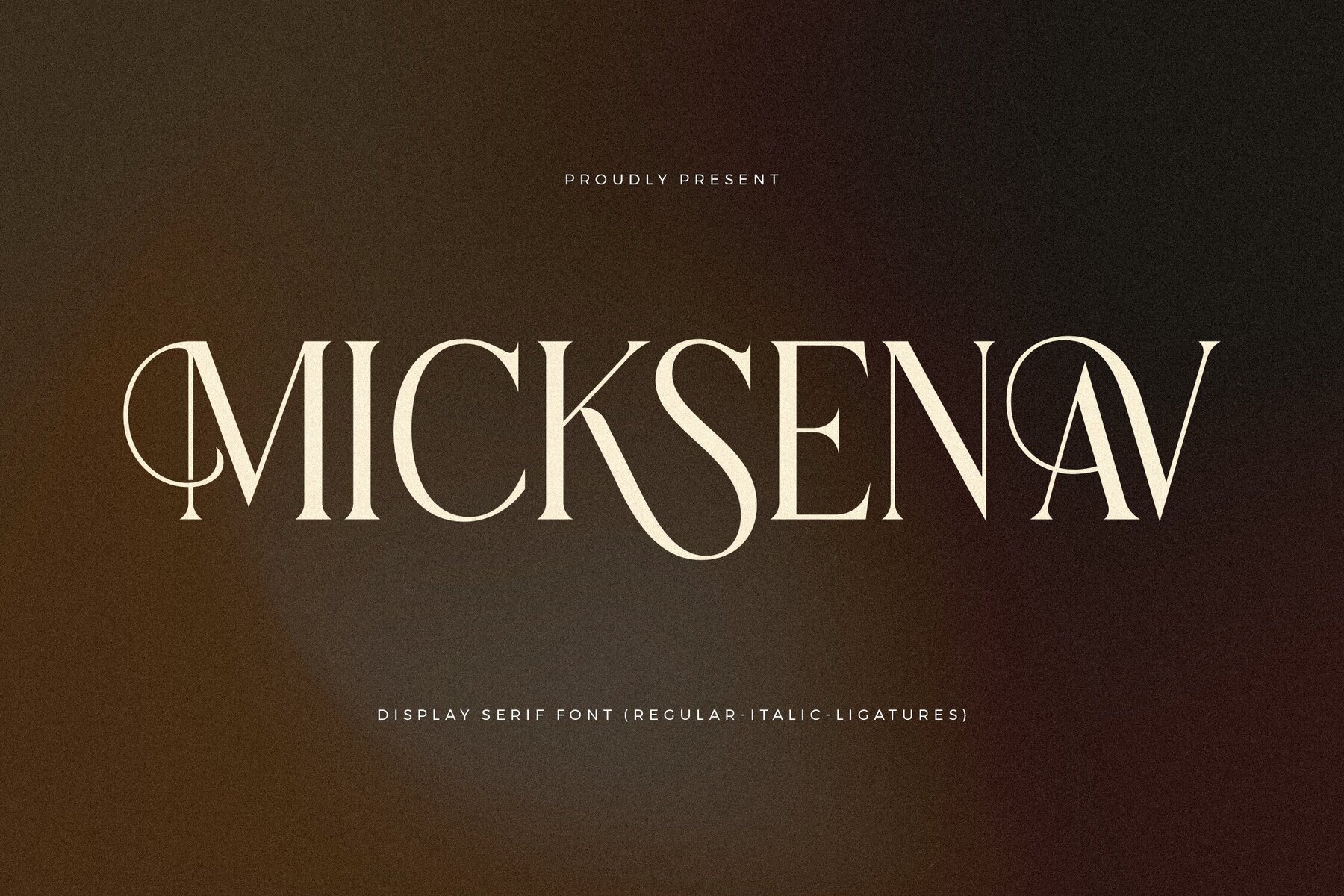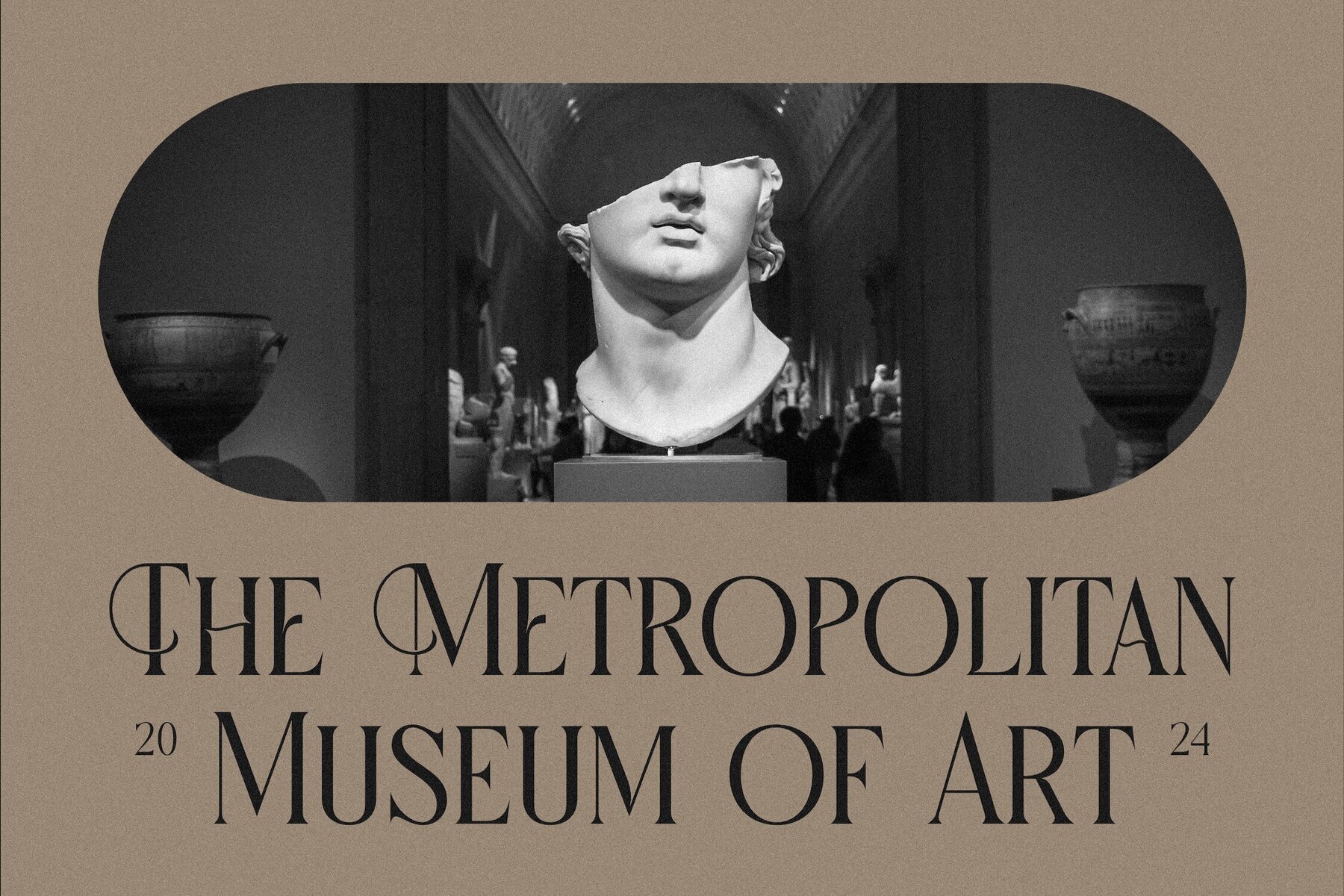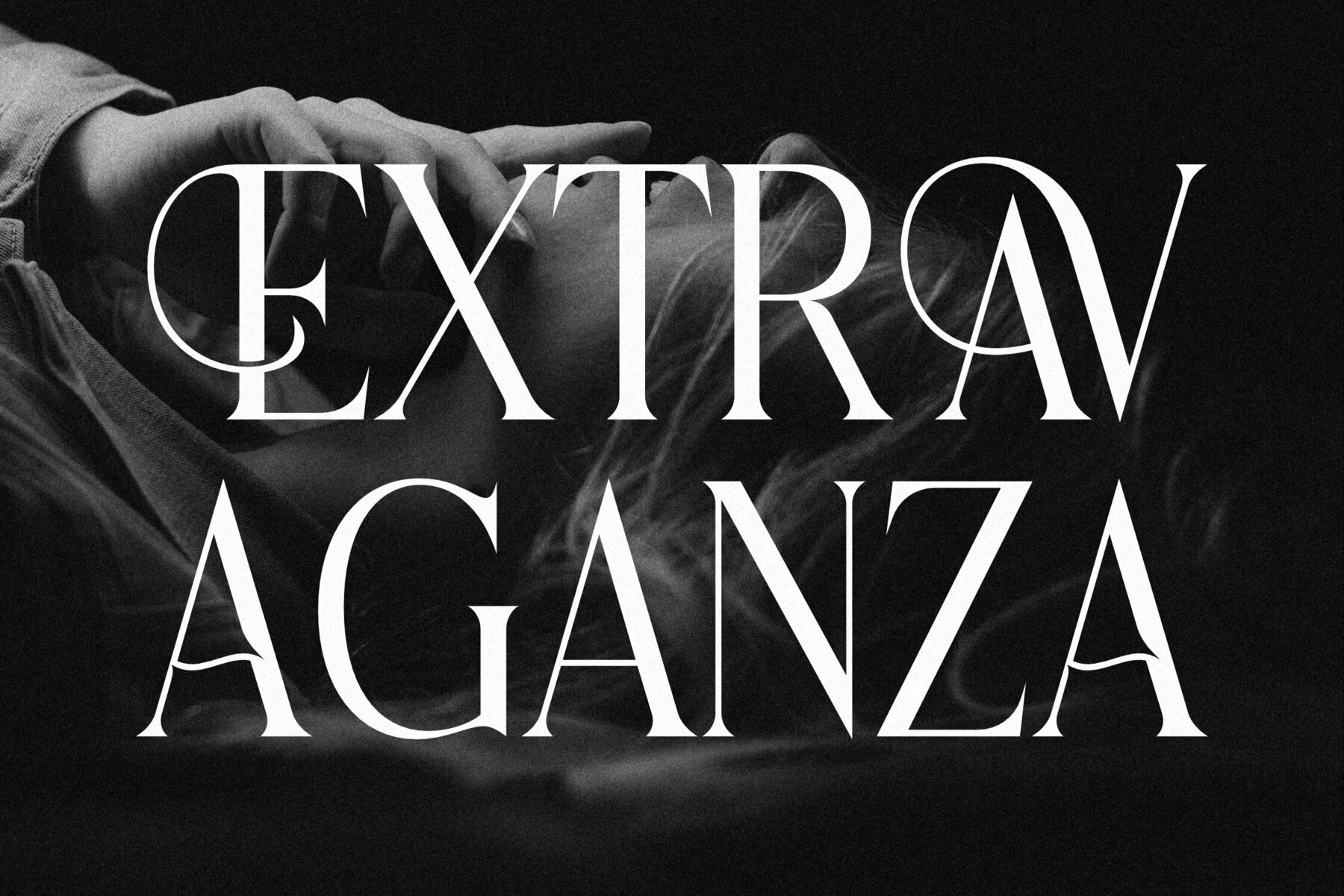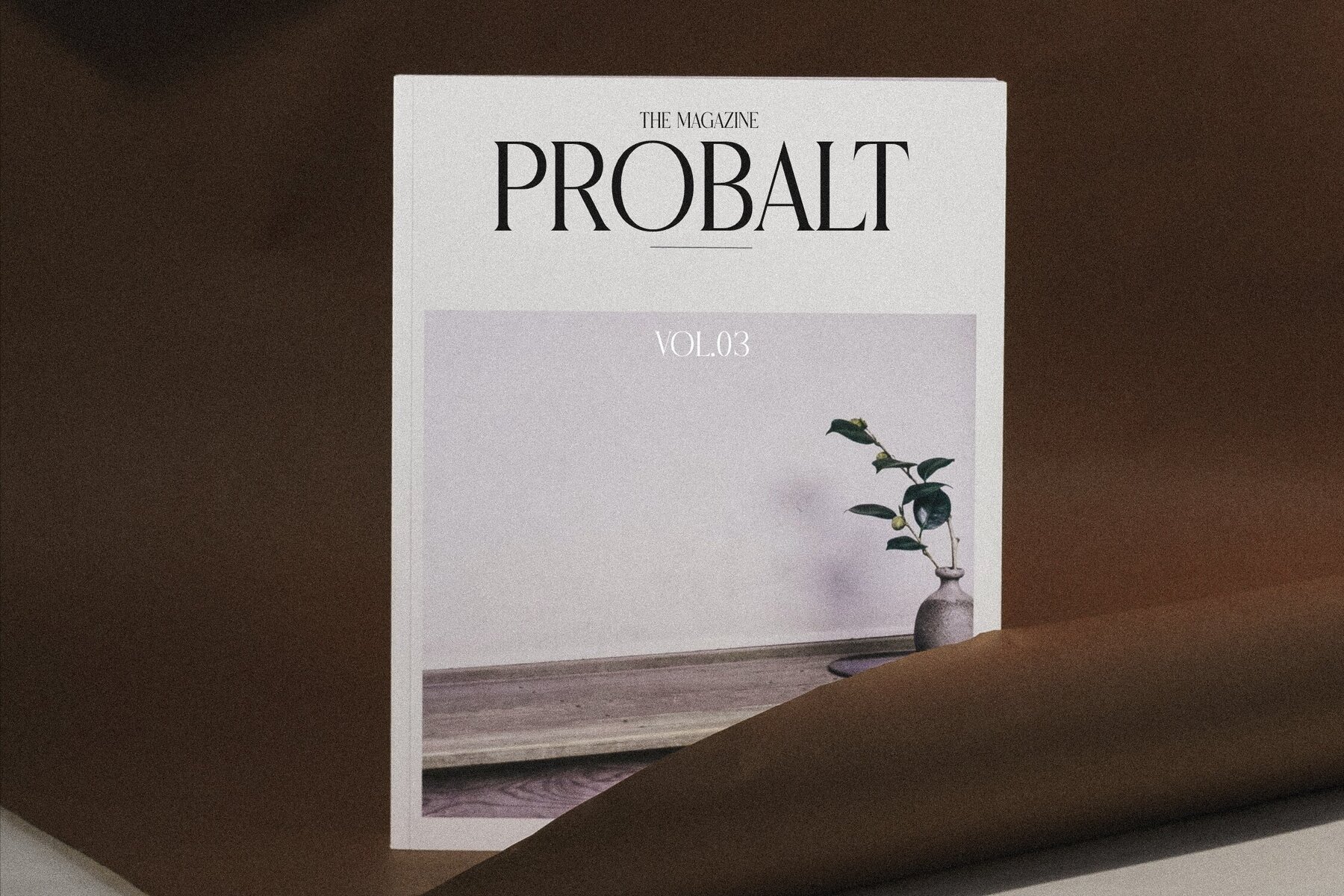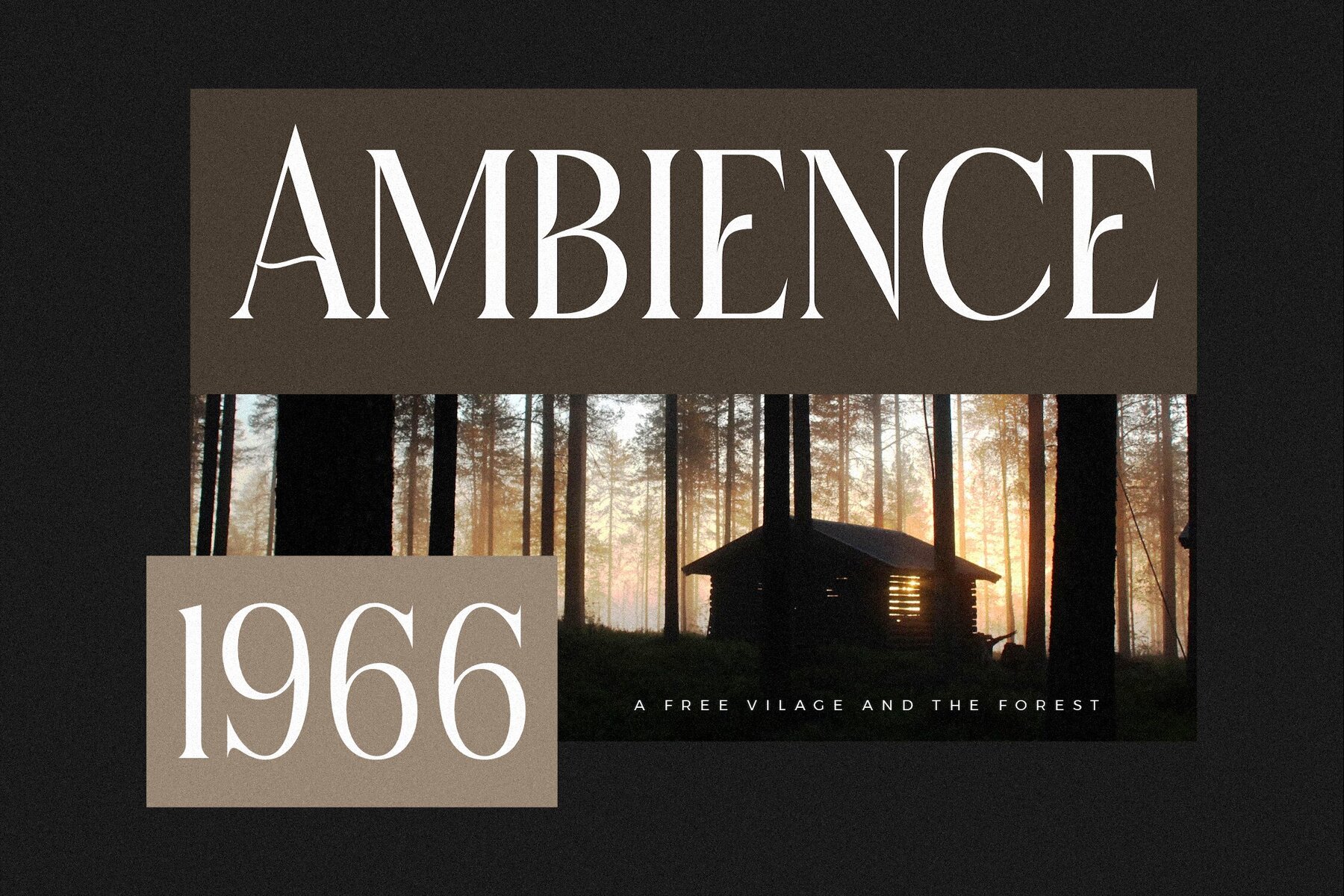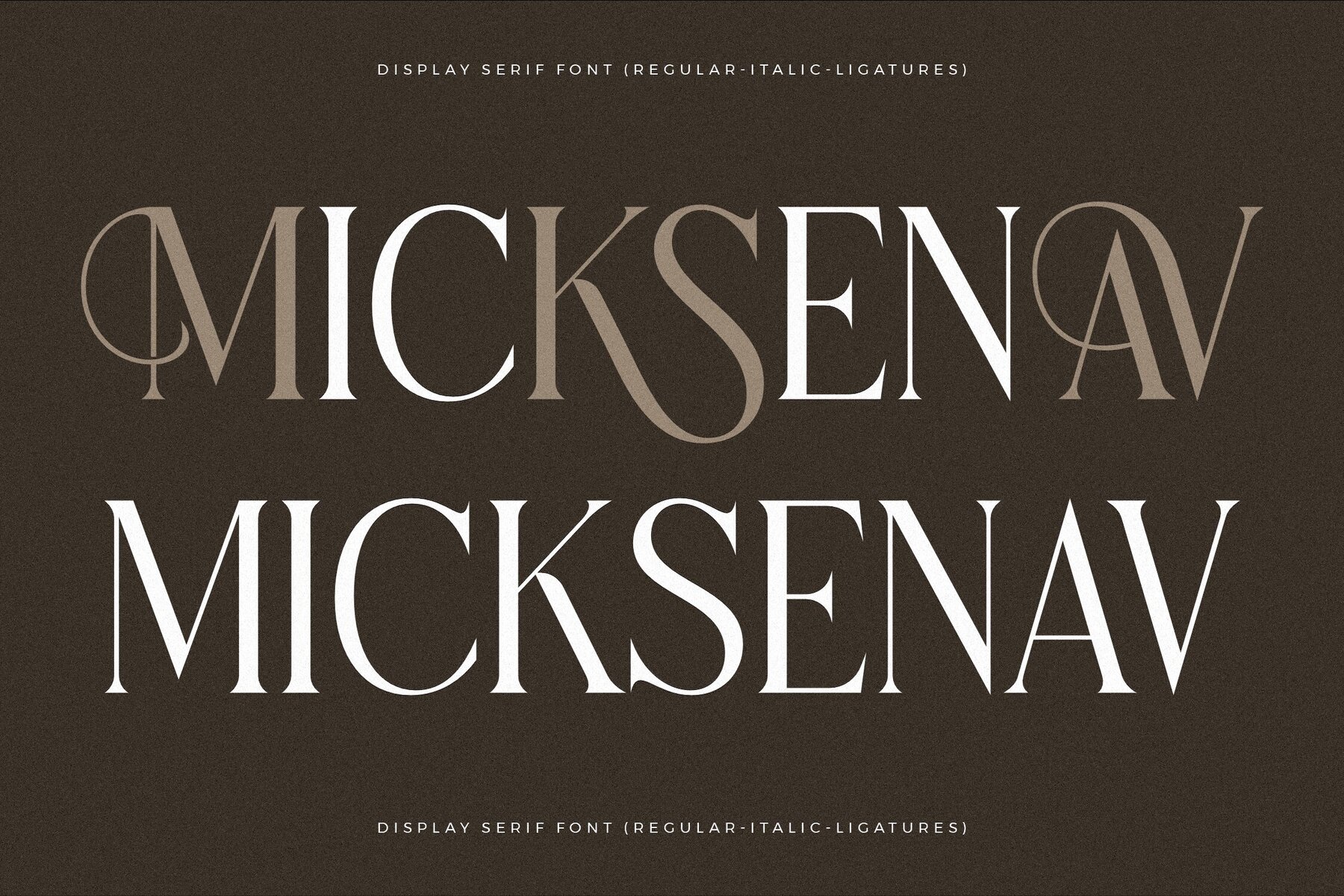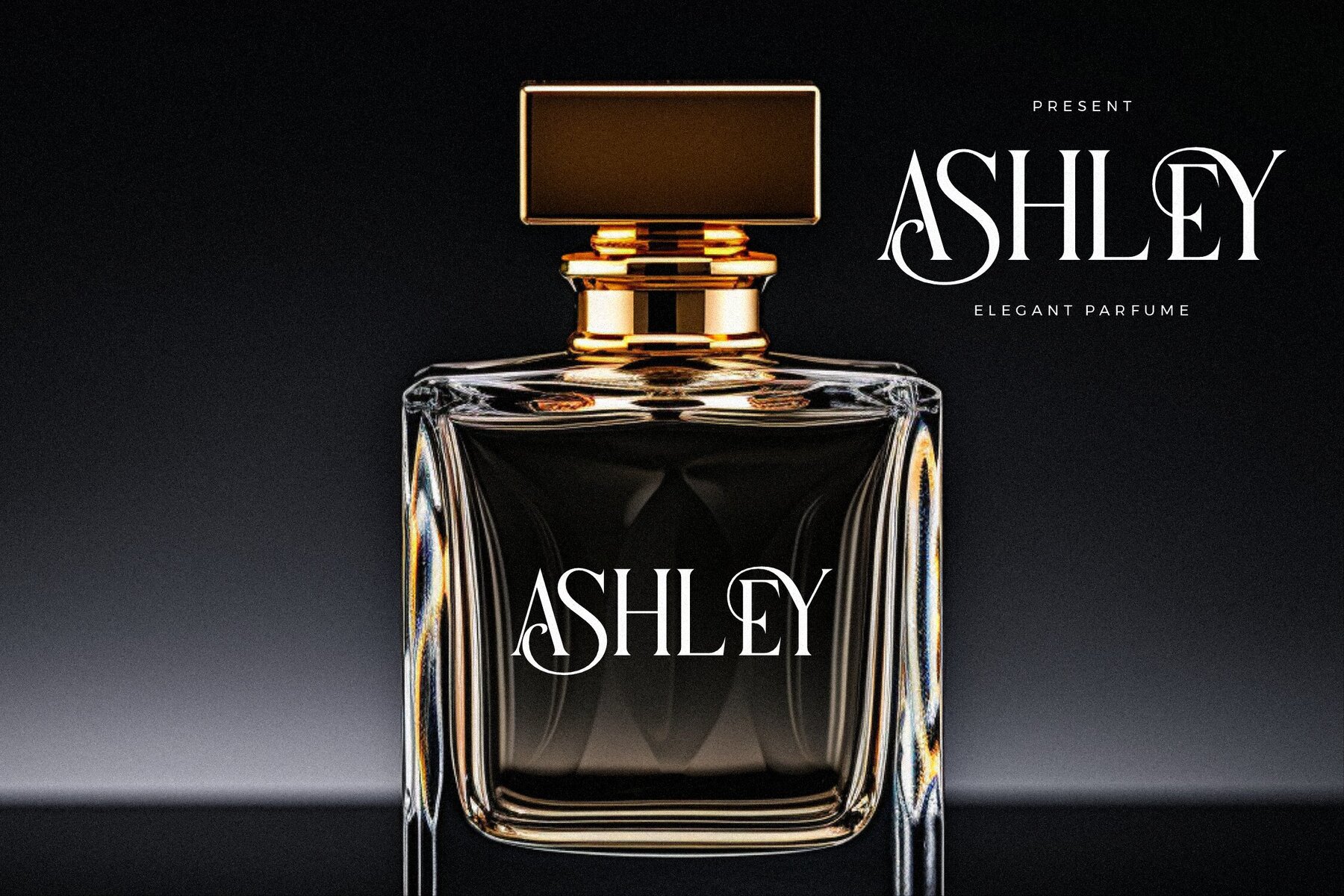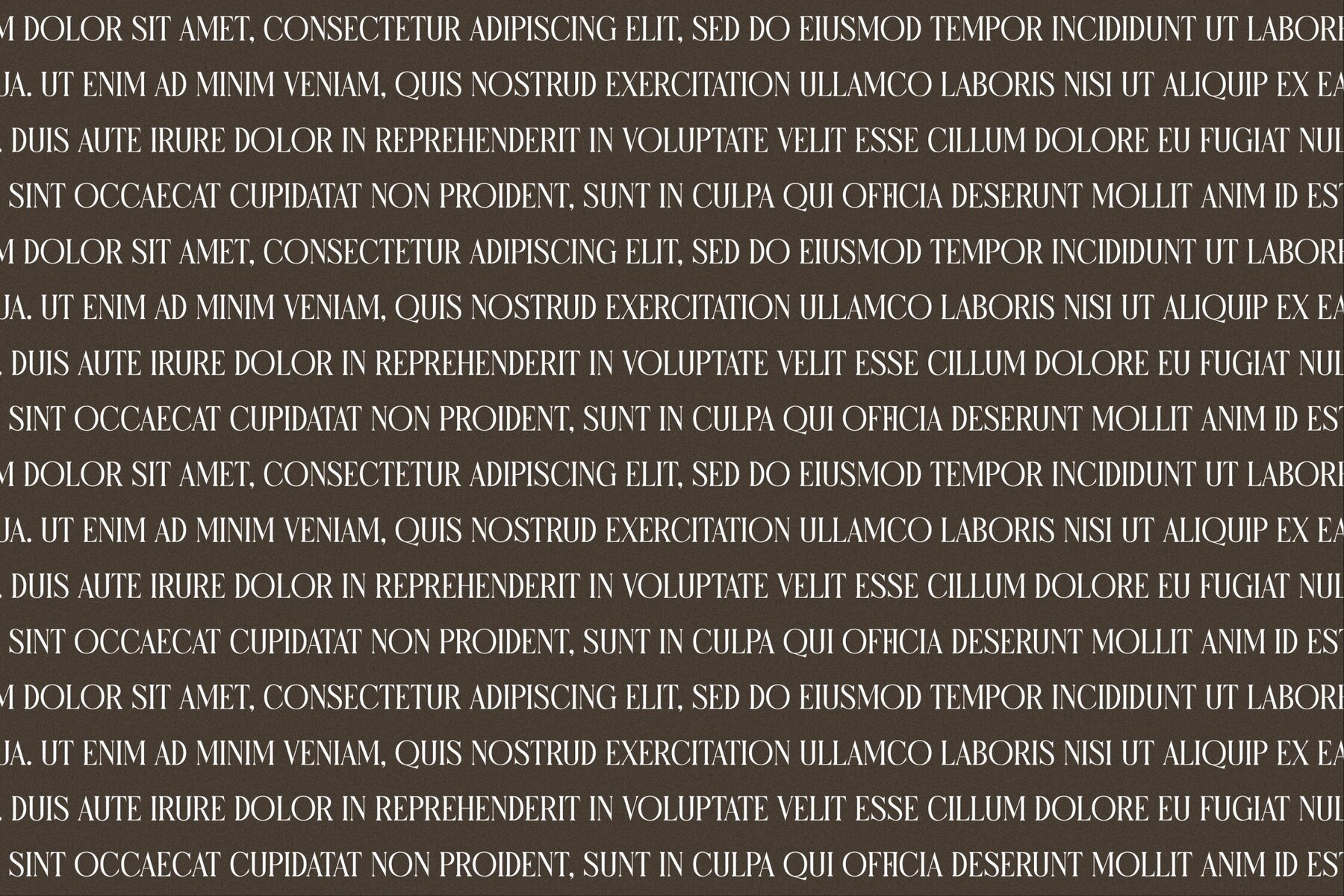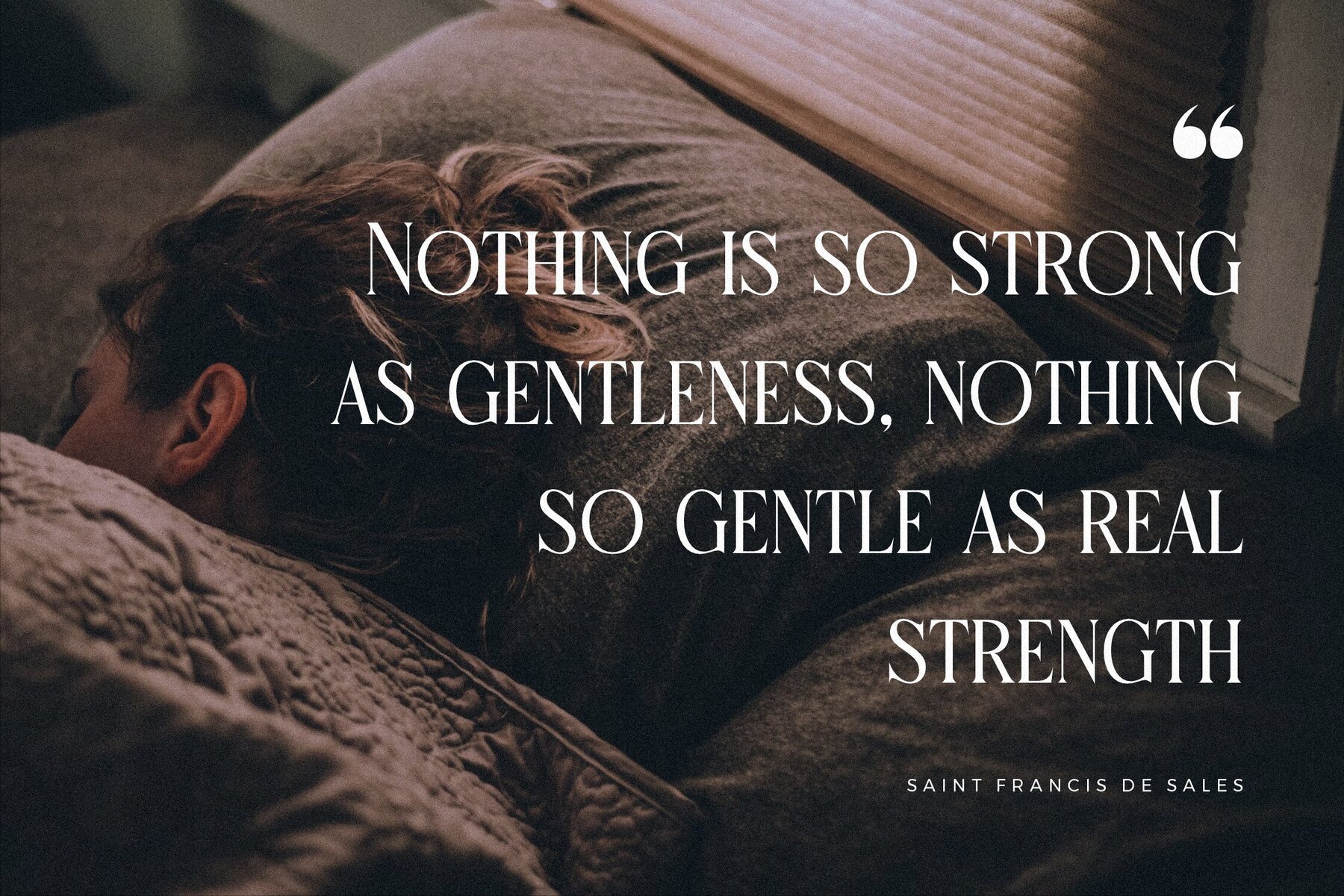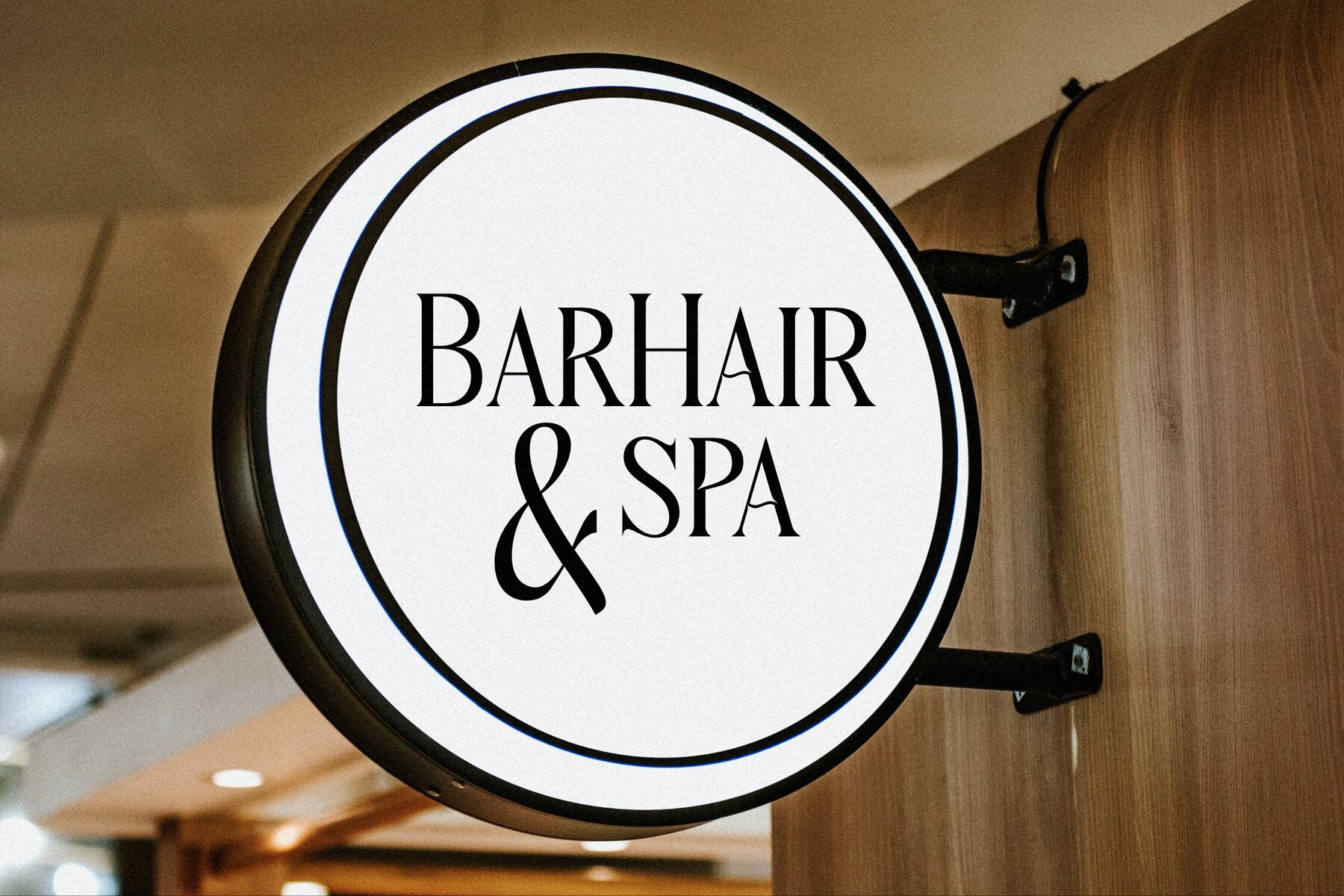
Micksenav Font
Introducing the Micksenav Typeface, an exquisite creation by Storytype Studio. This serif typeface seamlessly blends modern aesthetics with classic charm, offering a distinct and stylish look suitable for a variety of projects. Whether you're designing an elegant luxury logo, crafting a striking book or movie title, or tailoring the perfect fashion brand identity, Micksenav provides the sophistication and versatility you need.Micksenav Typeface: Modern Meets Classic